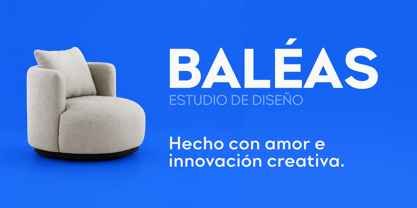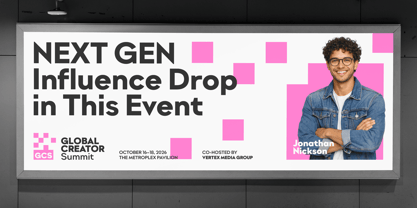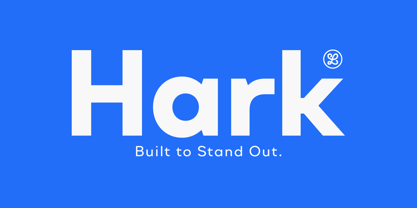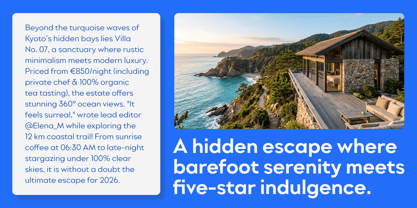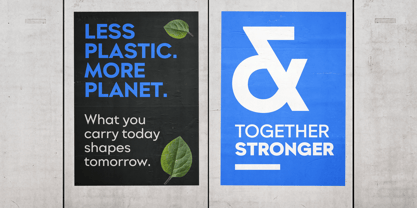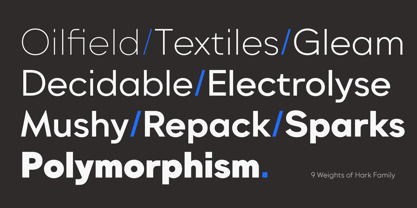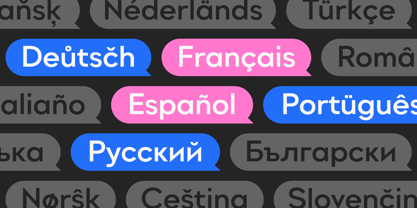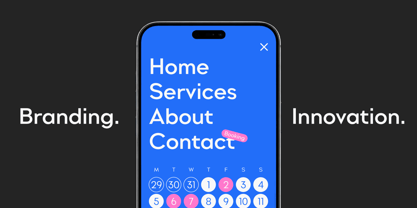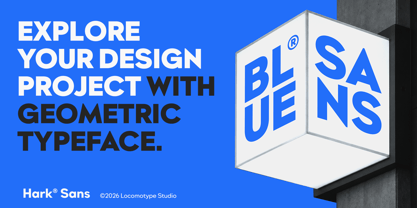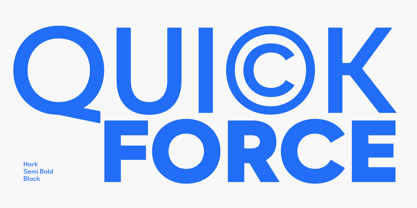
Hark
by Locomotype
The Hark Font Family was designed by Arwan Sutanto and published by Locomotype. Hark contains 9 styles and family package options. More about this family
Hark is a modern geometric sans serif font that boasts a solid and confident presence. Inspired by the strength and clarity of iconic typefaces like Gotham and Montserrat, Hark delivers a clean and powerful aesthetic, embodying professionalism and timelessness.
Designed for versatility, it offers 9 weights ranging from Thin to Black, along with matching upright and italic styles. This extensive selection allows for the creation of harmonious typography, ideal for branding, editorial design, websites, posters, and user interfaces.
With its robust structure and approachable proportions, Hark excels in both display and text applications, making it a reliable choice for projects that demand bold, modern typography that seamlessly integrates across various design contexts.